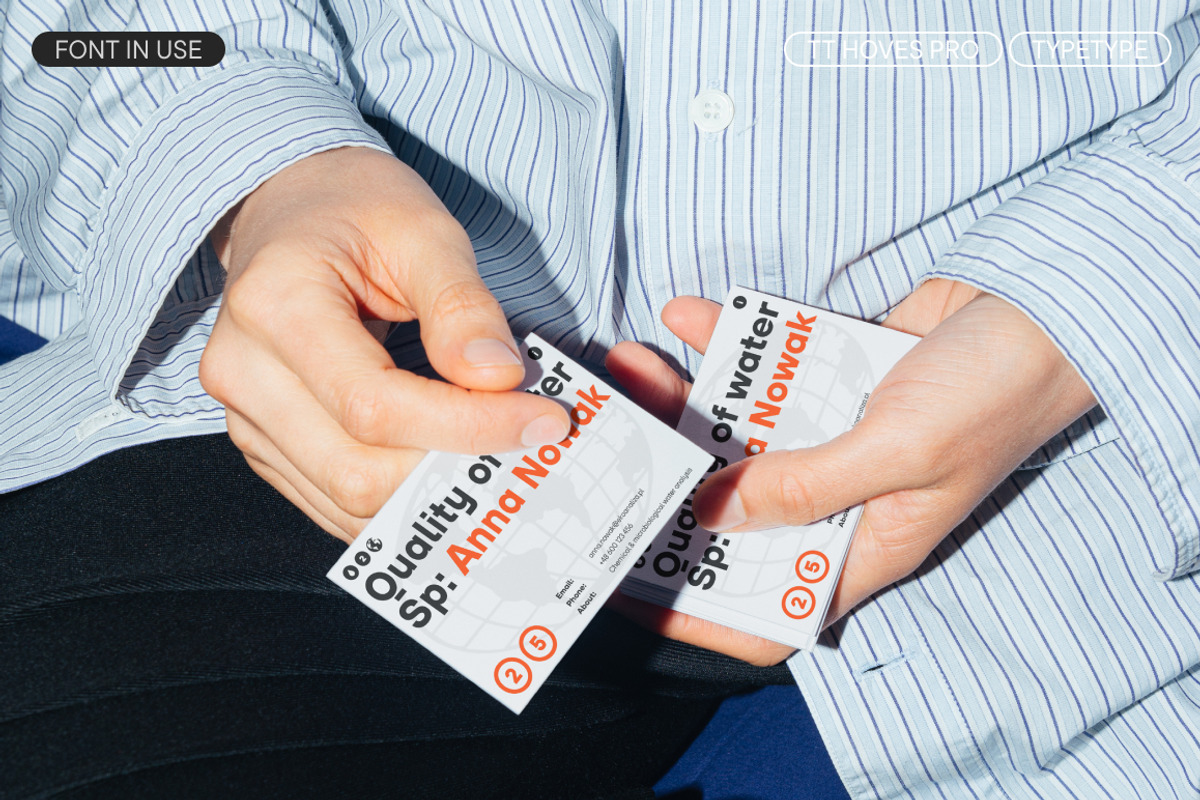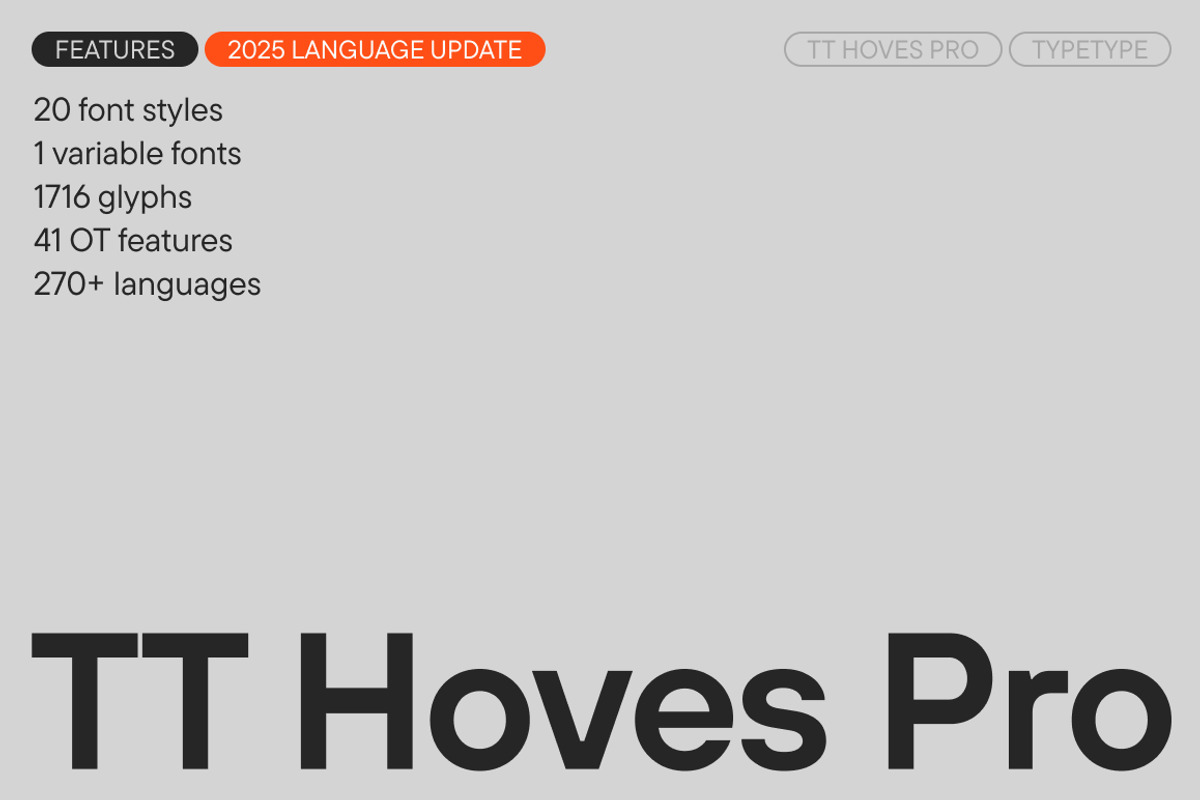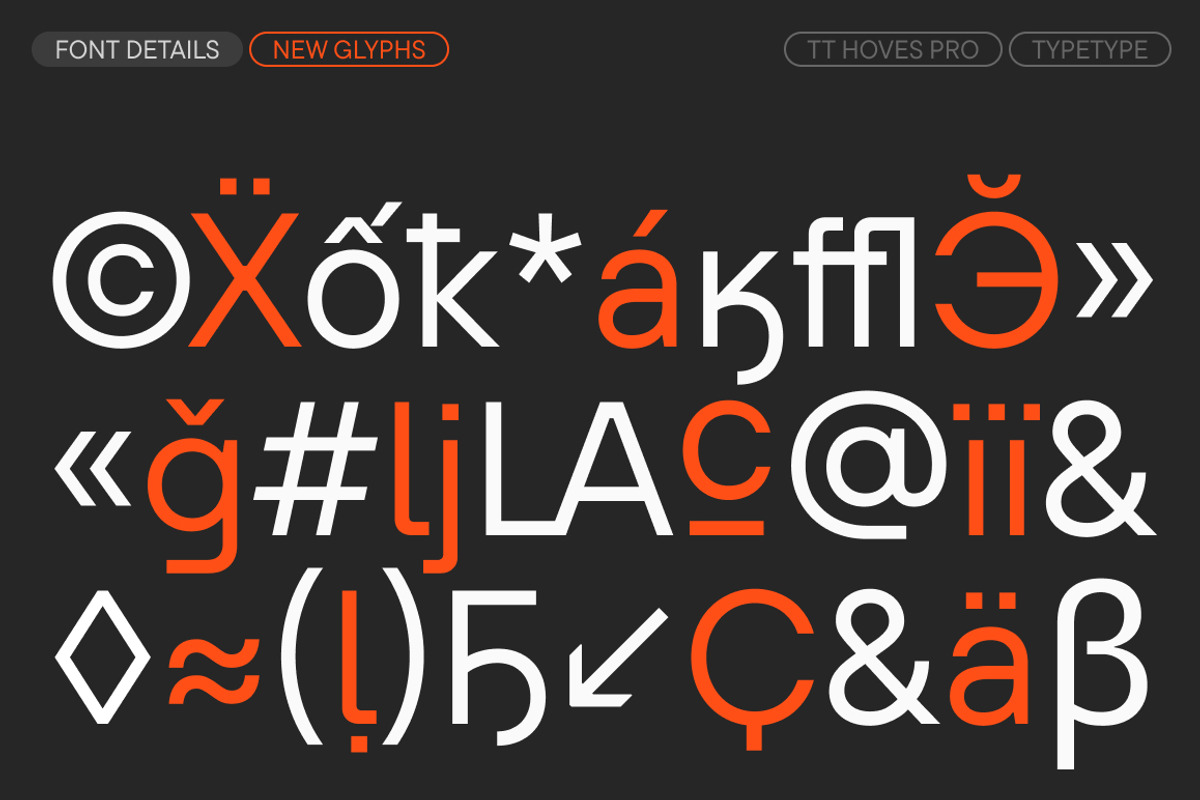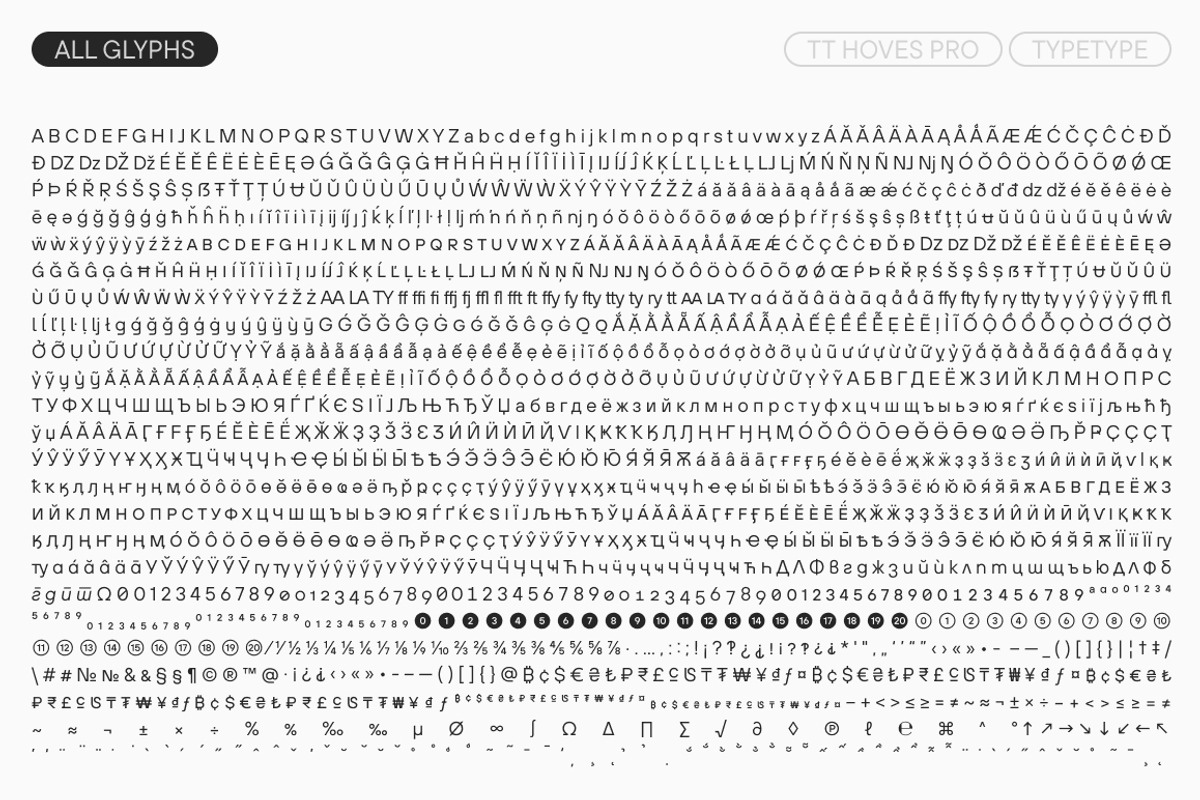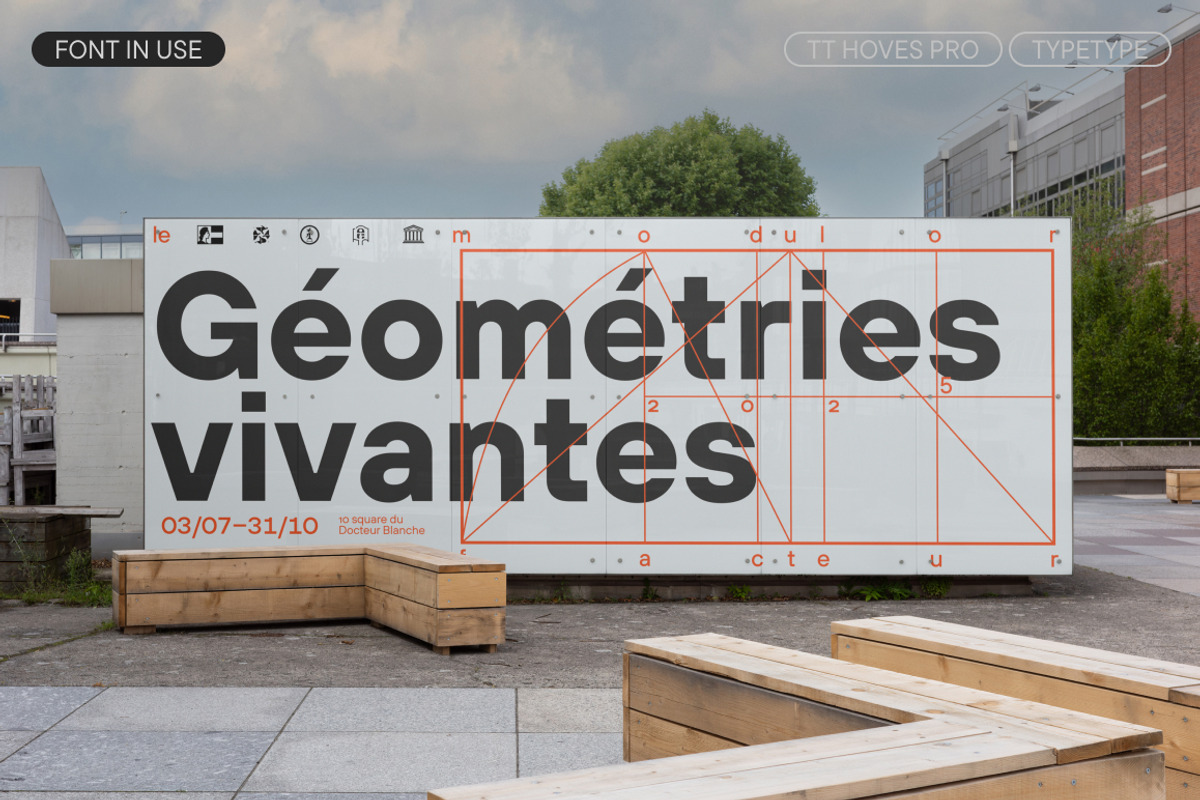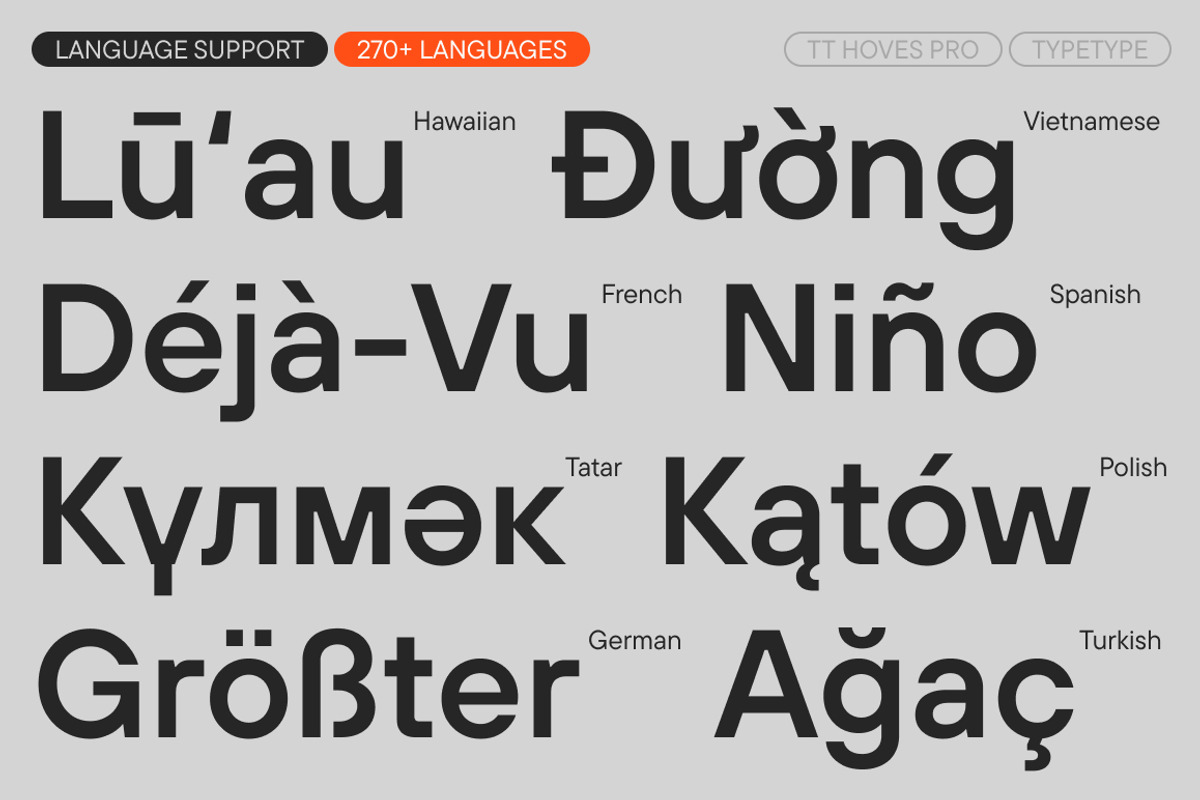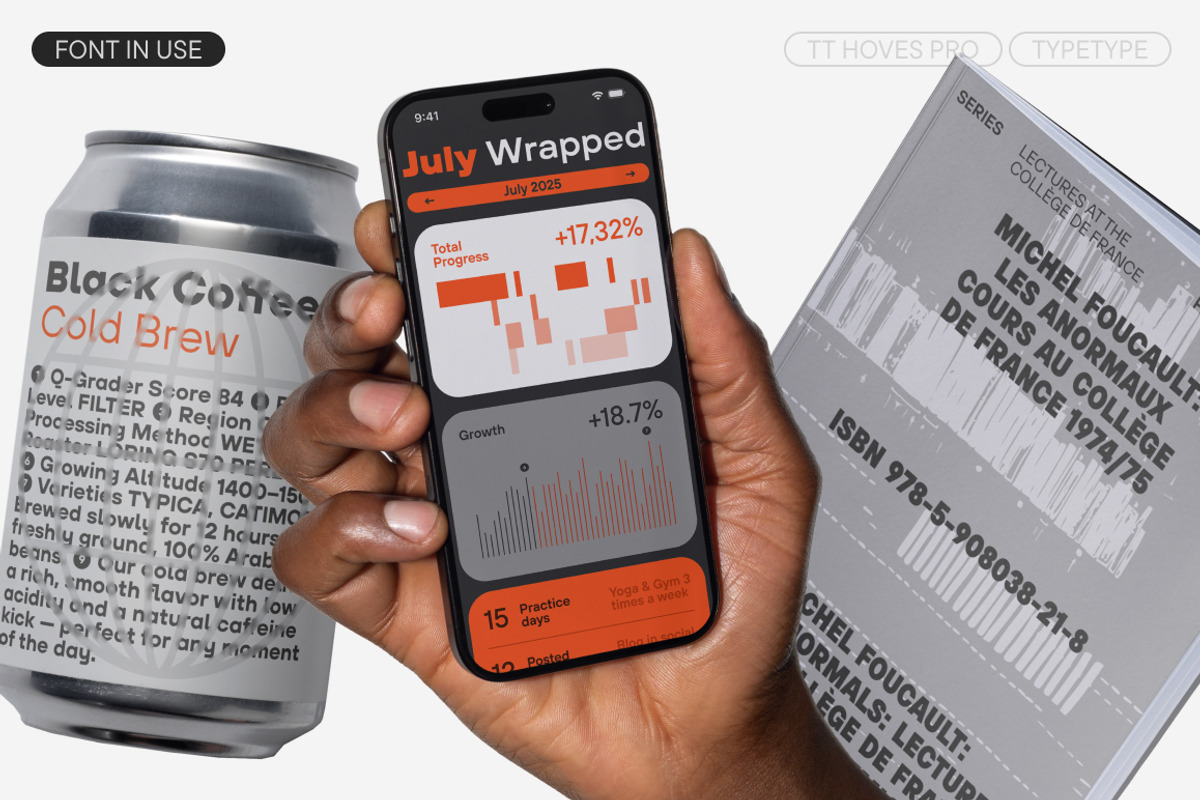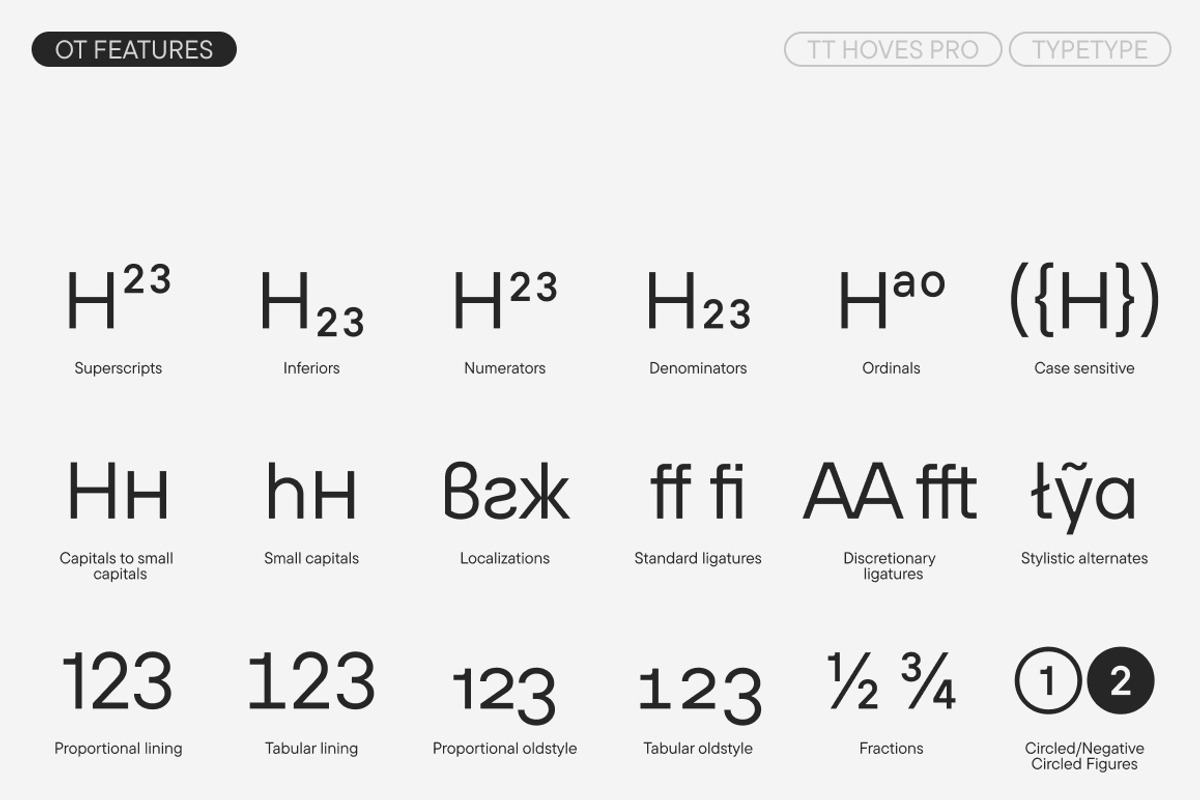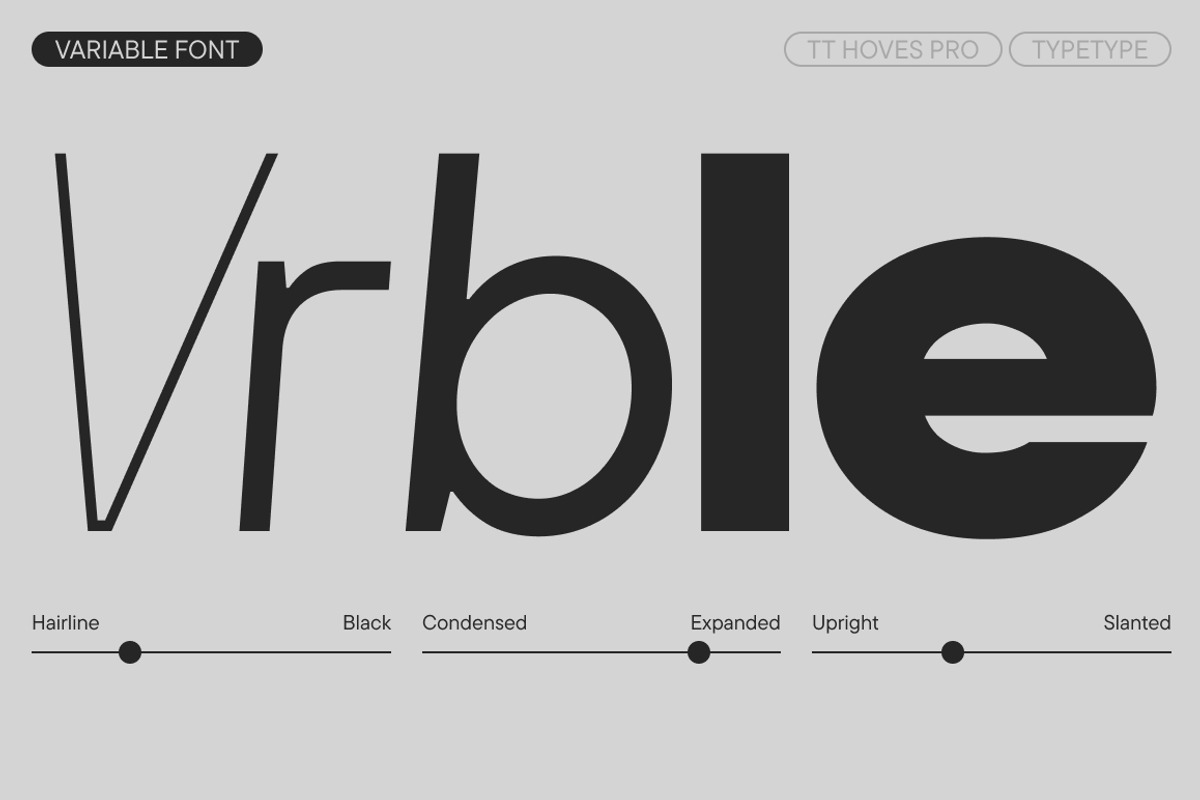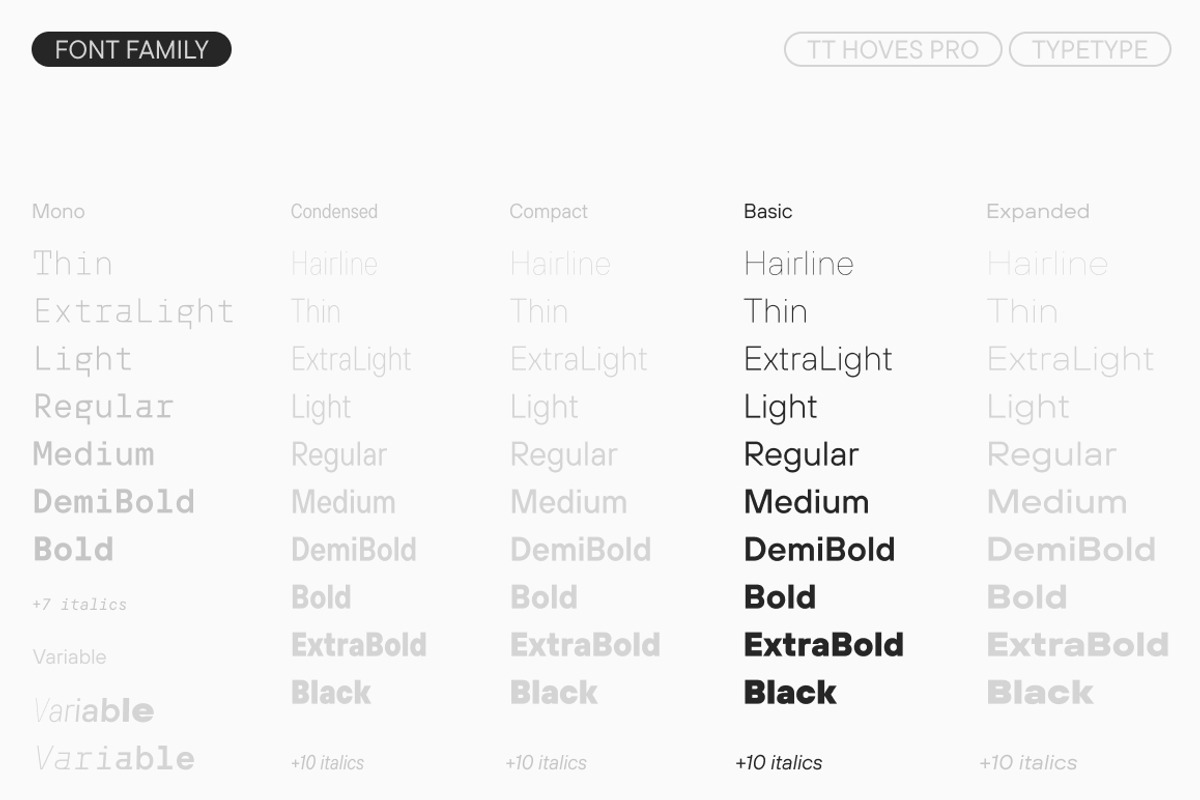
TT Hoves Pro Basic
Introducing the improved TT Hoves Pro version 3.200! We've added new glyphs and languages to further expand the typeface's functionality.
- Basic - 20 styles
TT Hoves Pro is one of our studio's bestsellers, part of our core set of versatile fonts. It is a Scandinavian sans serif with a character that is neutral yet recognizable. An important characteristic of this font is its visual lack of contrast. All terminals are aligned on the same level, and the triangular glyphs feature wide horizontal strokes.
The name TT Hoves is formed from the first syllables of two words: horizontals and verticals. It emphasizes the predominance of horizontal and vertical strokes in the glyph design. In creating this typeface, we aimed to provide a tool for designers that is convenient and functional, yet also stylish and aesthetic.
Thanks to its extensive character set, large number of font styles, and broad language support, TT Hoves Pro can solve a multitude of diverse tasks. Even more possibilities and creative freedom are offered to designers by the variable font, TT Hoves Pro VF, which can change along three axes: width, weight, and slant.
The typeface family also includes a Mono subfamily. In its design, we've preserved the main characteristics and stylistic features of the primary subfamily, but at the same time, we made the glyphs of many glyphs more display-oriented. This gives the Mono fonts a special flair and allows them to be used for design-focused tasks. For example, in the Cyrillic set, serifs have been added to several characters, resulting in a more even text texture. Interesting details include a set with a three-legged lowercase 'т' and a serif on the 'б'. The form of 'Cc' differs between the Cyrillic and Latin character sets, which helps avoid confusion when using the font in programming code.
In the updated version, we've added support for new languages and expanded the Latin and Cyrillic character sets. Specifically, we added lowercase punctuation and currency symbols: Uzbekistani Sum, Kyrgystani Som, and Tugrik (for all cases and forms).
TT Hoves Pro can easily be used in any modern project. It is ideal for web design and use in applications. It is perfectly suited for branding, packaging design, and print. The font has good readability and works excellently both in text blocks and at large point sizes.
The updated TT Hoves Pro features:
- 5 subfamilies: Compact, Normal, Condensed, Expanded, and Mono
- 96 styles: 40 uprights, 40 italics, 14 monospaced styles, and 2 variable fonts
- 1,716 glyphs in each style of the Compact, Normal, Condensed, and Expanded subfamilies, and 1,229 glyphs in each style of the Mono subfamily
- 41 OpenType features, including ligatures and stylistic alternates
- Support for over 270 languages
Full list of OpenType features: aalt, ccmp, locl, subs, sinf, sups, numr, dnom, frac, ordn, tnum, onum, lnum, pnum, c2sc, smcp, dlig, liga, calt, case, zero, SS01 (Alt. Latin and Cyrillic a, feminine ordinal), SS02 (Alt. Latin y and Cyrillic Y,y (straight terminal)), SS03 (Alternative l (square terminal)), SS04 (Alternative g (square terminal)), SS05 (Alternative y (square terminal)), SS06 (Alternative Cyrillic Che), SS07 (Alternative G), SS08 (Alternative Q), SS09 (White Circled Numbers), SS10 (Black Circled Numbers), SS11 (Serbian localization), SS12 (Bashkir localization), SS13 (Chuvash localization), SS14 (Bulgarian localization), SS15 (Romanian Comma Accent), SS16 (Dutch IJ), SS17 (Catalan Ldot), SS18 (Turkish i), SS19 (Slashed Zero)